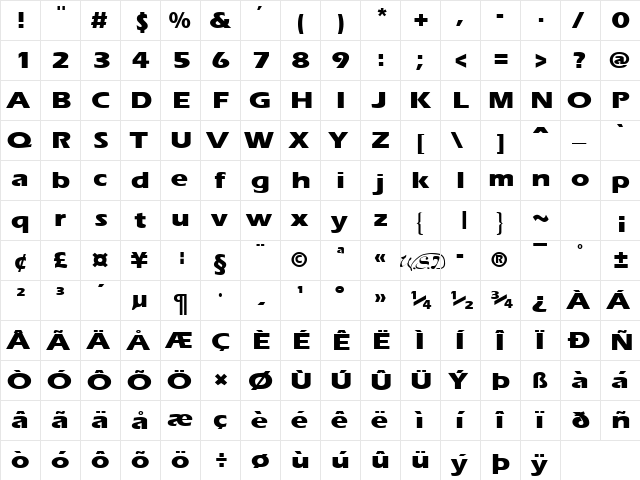
Ergoe Extrabold Expanded Regular
Design Context for Ergoe Extrabold Expanded Typeface
Ergoe Extrabold Expanded offers clean, dependable letterforms without strong stylistic allegiance, making it a practical choice for designers who need flexibility. The heavy weight commands attention and anchors typographic hierarchies.
Pro Tip: Use Ergoe Extrabold Expanded in both headline and body roles to test its range before committing to a single application.